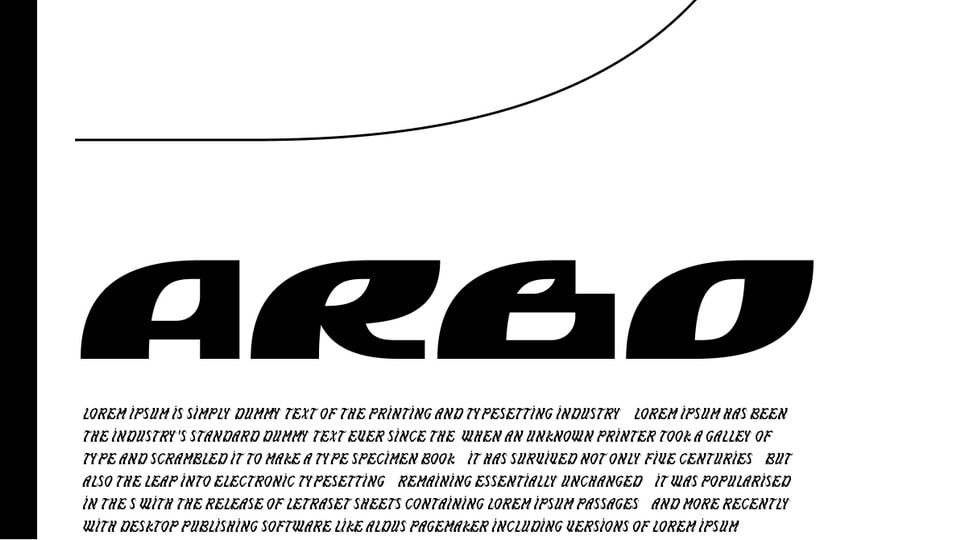
Download Plantasia Arbo font, a unique display typeface inspired by the Aloé arborescence. Plantasia is a typeface family created by the students of the G5 Communication 360 class.
Designer: Maureen Bouché